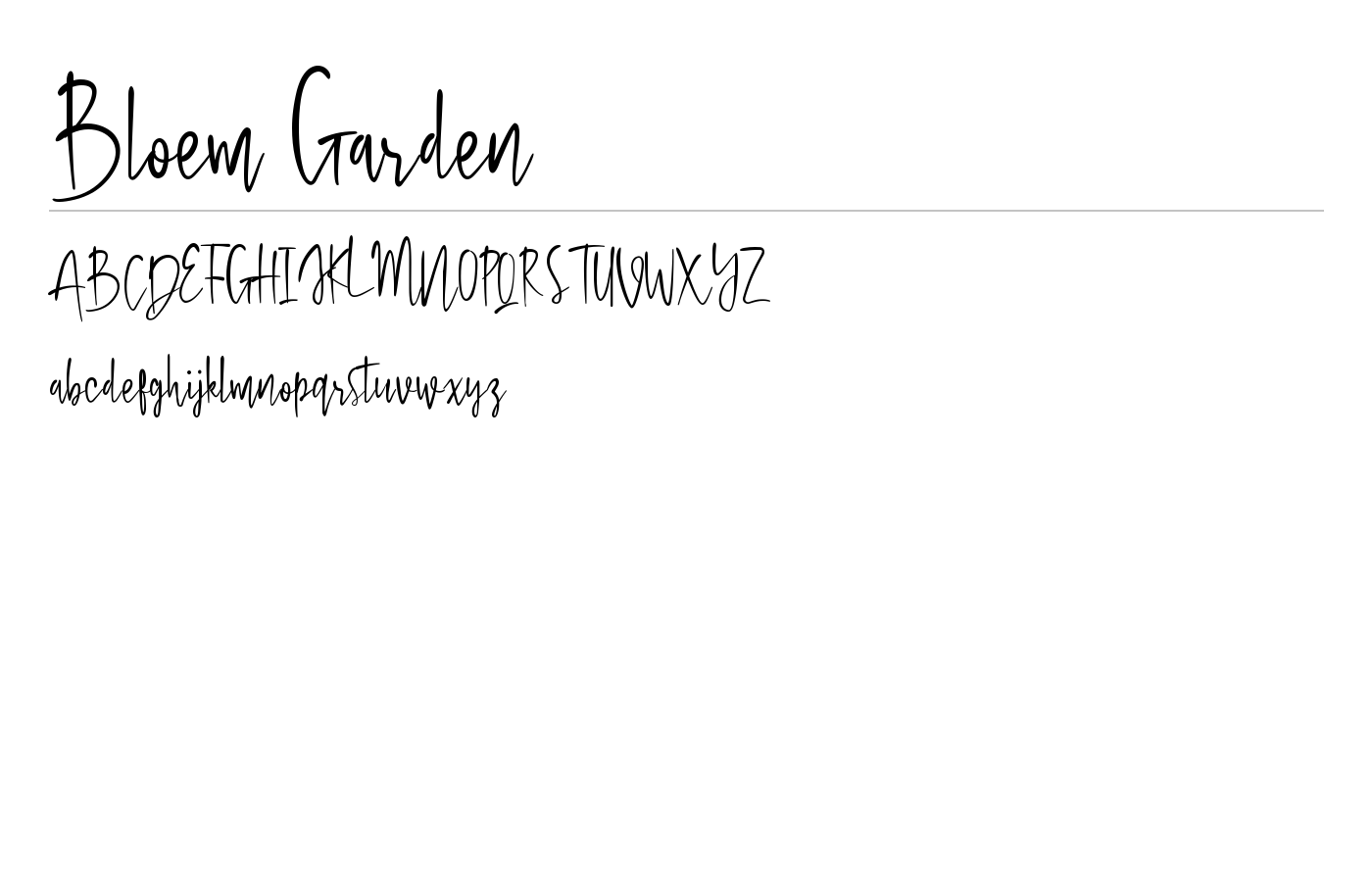
Bloem Garden is a light, handwritten script font with a casual and airy feel, featuring tall, narrow letterforms and playful strokes that mimic natural penmanship. Its delicate, slightly irregular lines create a charming and approachable personality, making it ideal for creative branding, invitations, and feminine or whimsical design projects. This font works best in headlines or short text where a personal, informal touch is desired.
Bloem Garden Font
About Bloem Garden Font